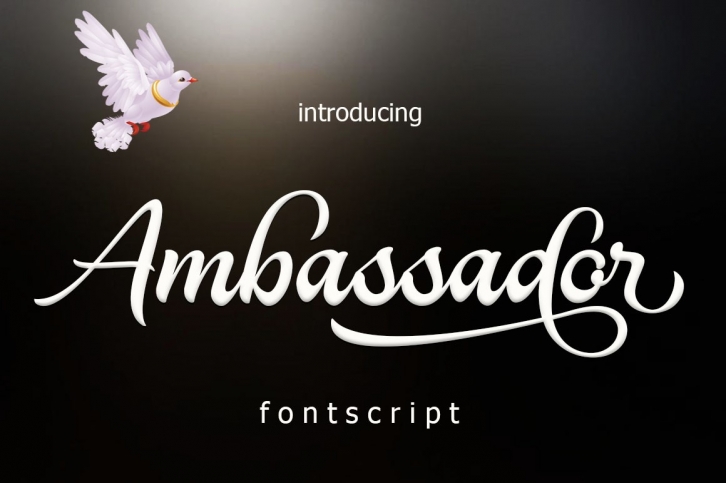
Ambassador is a great font that was designed by Byuly Ayika. Imagine the amount of combinations you can create using this font! The archive is 6.68 MB and it was released on April 14, 2016. Ambassador looks beautiful on wedding invitations, greeting cards, logos, posters, labels, t-shirt designs, logos, business cards and is perfect for use in ink or watercolor works, fashion, magazines, packaging and food menus, children's books and more!